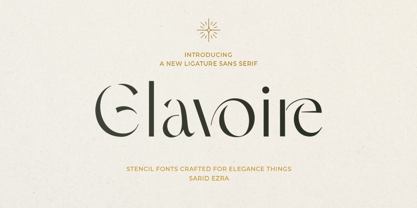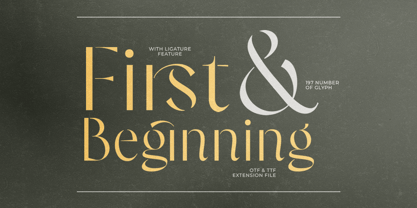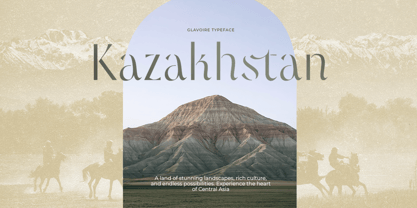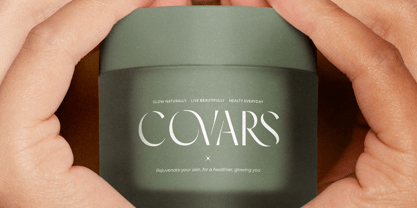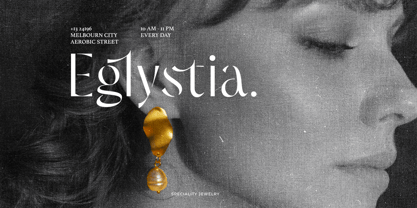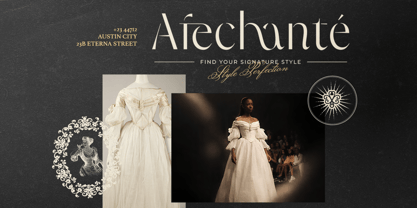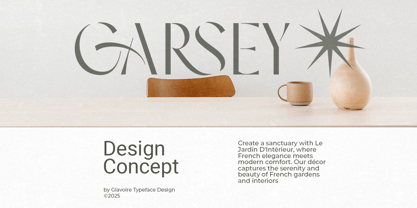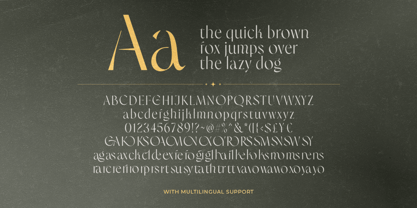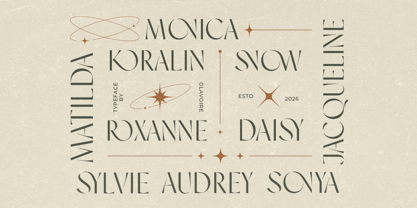
Glavoire
by Sarid Ezra
The Glavoire Font Family was designed by Sarid Ezra and published by Sarid Ezra. Glavoire contains 1 styles. More about this family
Glavoire is an elegant stencil sans serif typeface featuring stylish, eye-catching ligatures. Each character has been carefully crafted to achieve a refined balance of form and function, allowing the font to instantly bring a sense of luxury and sophistication to any design. Its distinctive shapes and clean structure make it highly versatile, suitable for a wide range of creative purposes—from logotypes and branding materials to editorial layouts and even wedding invitations. With its polished aesthetic and thoughtful detailing, Glavoire helps elevate visual identity effortlessly while maintaining readability. Additionally, this font supports multiple languages, making it a practical choice for both local and international projects.
Designers: Sarid Ezra
Foundry: Sarid Ezra